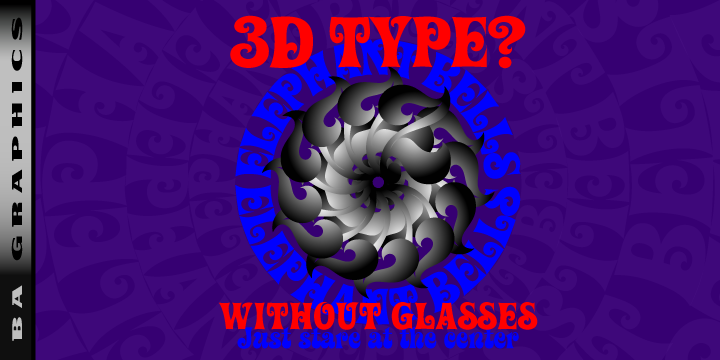
Elephant Bells Font is a whimsical and charming display typeface that truly embodies a sense of playful delight and unique character. It's perfectly suited for projects that aim to convey joy, creativity, and a touch of handcrafted simplicity, such as children's book titles, whimsical event invitations, charming product packaging, and engaging social media graphics. Imagine Elephant Bells Font gracing the cover of a quirky animated movie, adding a delightful touch to a birthday party invitation, or providing a warm and inviting feel to a handmade craft store's signage. Its unique, often bouncy or irregular letterforms, ensure your message stands out with remarkable originality and an immediate sense of imaginative allure.
What makes Elephant Bells Font truly exciting is its ability to infuse designs with a sense of playful authenticity and an endearing personality. This font often features charming irregularities, a natural, unforced flow, or a slightly "bubbly" quality that gives it a unique and friendly appeal. It's an excellent choice for designers looking to create a whimsical, approachable, and truly charming visual experience. Elephant Bells Font isn't just about conveying words; it’s about adding a significant artistic component that enhances the overall mood and message of your design, making it perfect for projects that demand a youthful, joyful, and utterly lovable aesthetic.
Elephant Bells Font typically functions as a display font, meaning its primary strength lies in headlines, logos, and short bursts of text where its unique characteristics can truly shine. While it may not feature an extensive range of weights or styles like a comprehensive text family, its impact comes from its singular, powerful design. It often includes a standard set of uppercase and lowercase letters, numbers, and basic punctuation, with its distinct stylistic elements being the main draw. This focused approach means that the Elephant Bells Font Free Download is an invaluable asset for creating eye-catching and memorable design elements that instantly communicate a powerful and striking theme, setting your work apart.